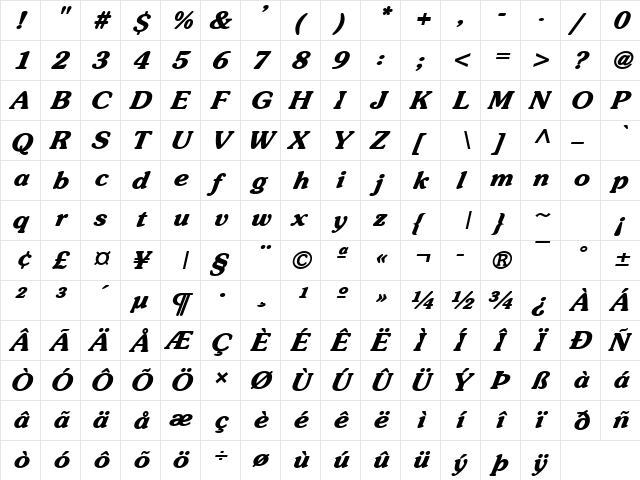
Sojourn BoldItalic Font Preview
Design Context for Sojourn Typeface
Sojourn takes a measured approach to typography — its balanced proportions and neutral character make it a reliable workhorse for both digital and print work. Its italic angle brings a sense of urgency and motion to the letterforms. Its bold stroke weight gives it real presence on the page.
Pro Tip: Try Sojourn for annotation and caption copy alongside an upright companion — the contrast in angle creates a dynamic but ordered typographic system.